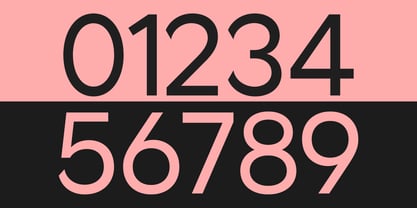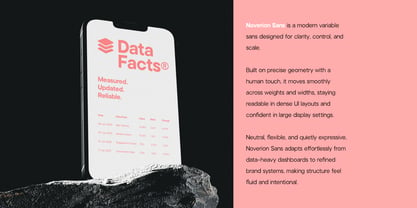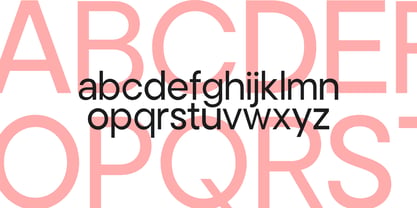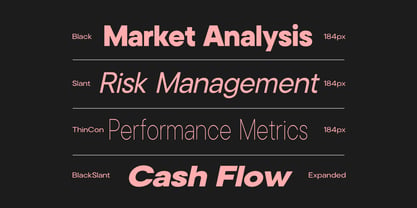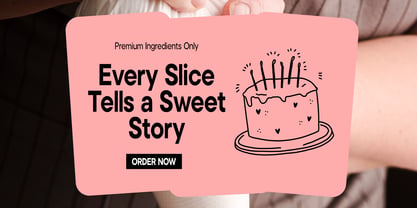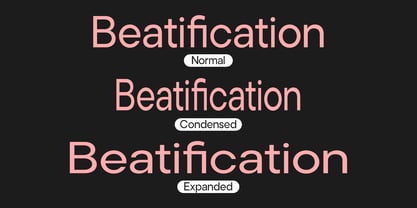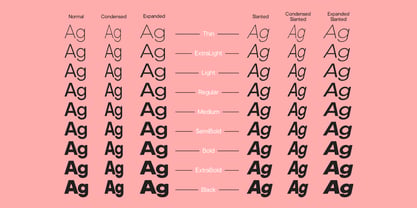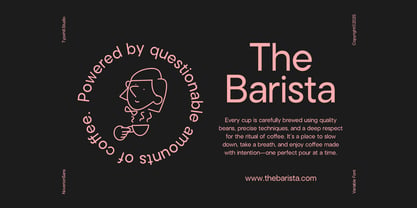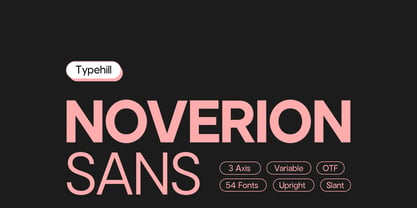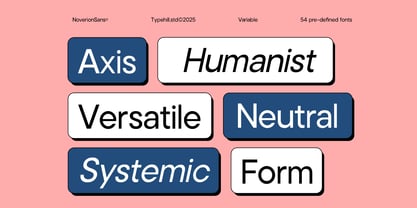
Noverion Sans
Die Schriftfamilie Noverion Sans wurde von Teuku Fahruddin entworfen und von Typehill Studio veröffentlicht. Noverion Sans enthält 55 Stile und Familienpaketoptionen. Mehr über diese Familie
Noverion is a modern sans serif type family designed to deliver maximum flexibility, visual precision, and a strong contemporary character. With clean construction, balanced proportions, and refined details, Noverion adapts seamlessly to a wide range of design needs—from professional branding and editorial layouts to digital interfaces and large-scale typography. The family includes a complete set of 54 styles, covering a broad range of weights and featuring both upright and italic variants. This extensive system allows designers to control visual hierarchy with consistency and expressive clarity. Each style is crafted with careful attention to readability, weight consistency, and optimal performance across both screen and print environments. Noverion is an ideal choice for designers seeking a solid, versatile modern type system built for long-term projects and strong visual identities.